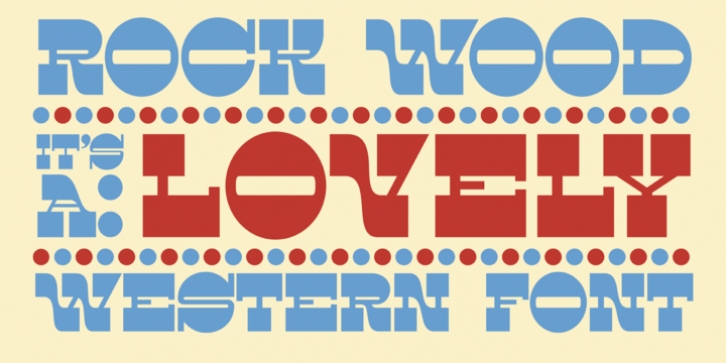
Rock Wood was published by Kprojects. Rock Wood contains 2 styles and family package options.
Rock Wood is a fresh version of old western wood type.
With its strong and sinuous lines it has a taste of vintage and modern at the same time.